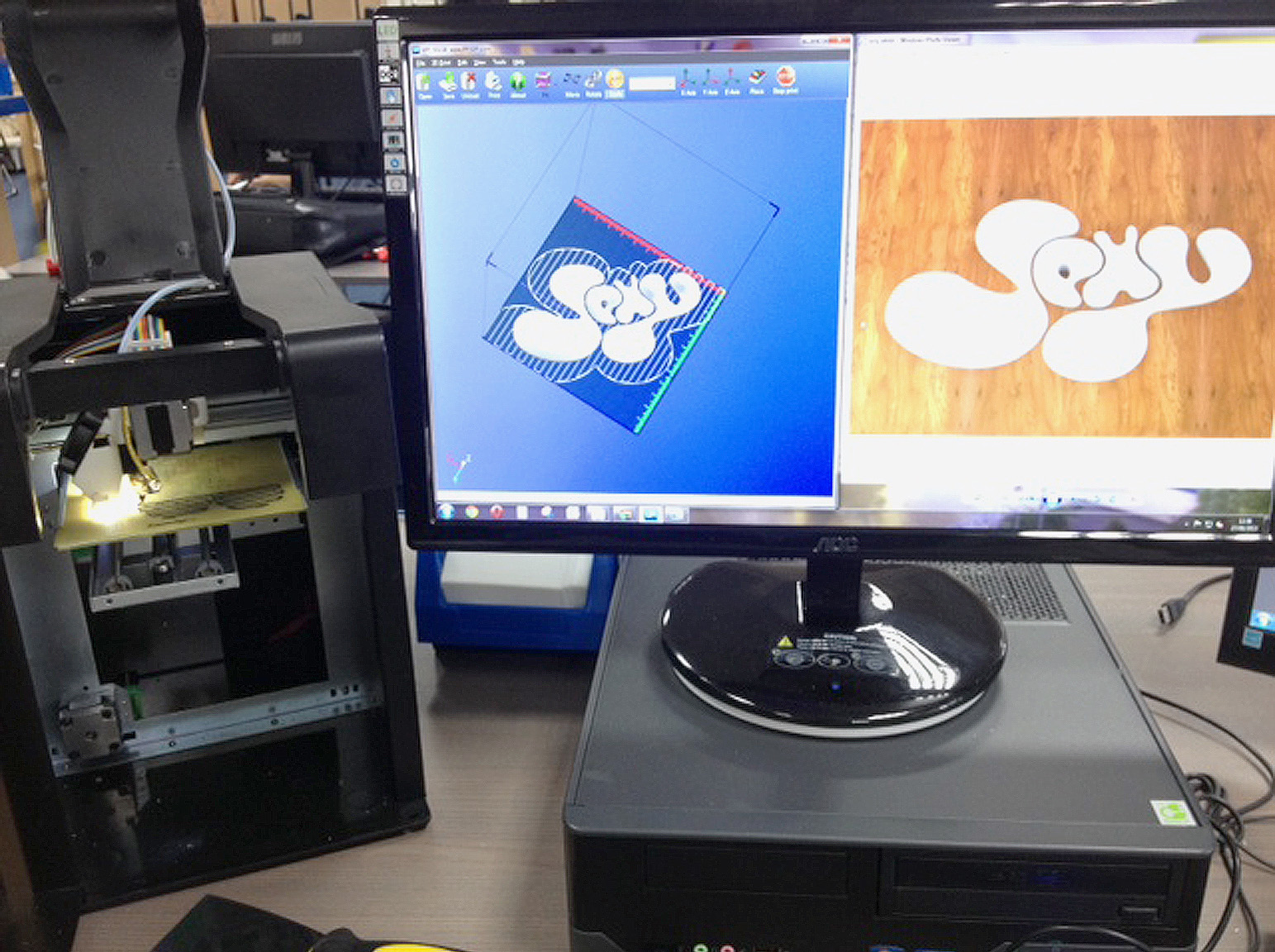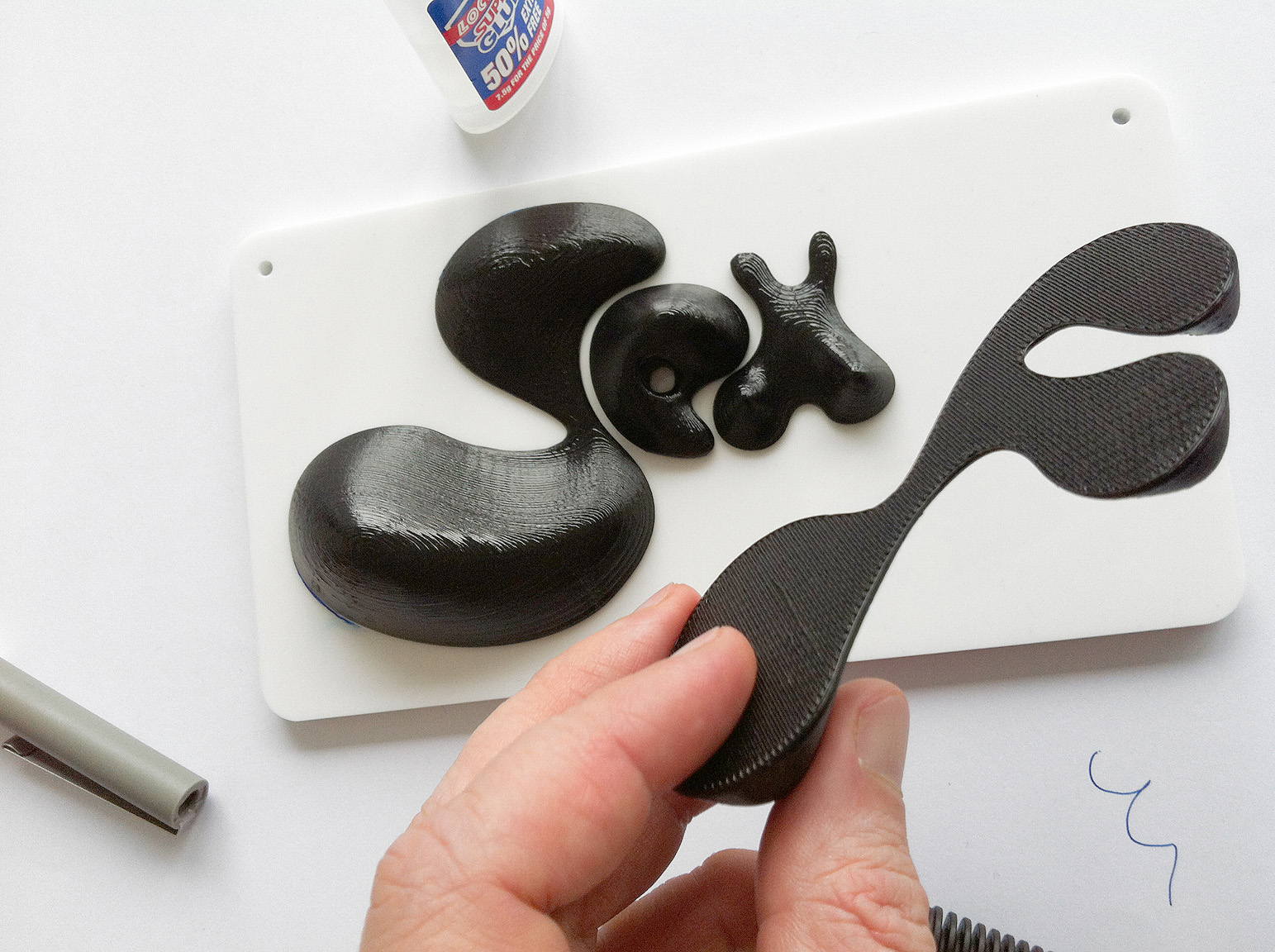
‘Sexy’ by Mind Design
Holger Jacobs runs Mind Design with Stewart Walker. Jacobs explains that “We Londoners are usually considered a bit stiff and there is a famous saying: ‘No sex please – we are British’.
“However, we were interested in the swinging 60s when London became sexy. Our typographic treatment of the word is inspired by the soft, psychedelic, lava lamp-like lettering seen during the hippie era. Like a big hugging blow up cushion.”
“Originally I made a quick sketch which we turned into a more defined computer drawing. That could have been the final outcome but we were interested to see how the word might look three dimensionally. At the same time we were really curious to work with one of those new 3d printers that become quite affordable now. I recently noticed a shop in Clerkenwell near our regular printer which offers this service (iMakr).”
It took a few days and we got our letters back nicely finished with a glossy black surface. If you look closely you can still see how the 3d printer builds them up layer by layer. We then ordered a piece of white acrylic and stuck the letters on with super glue. This was a bit tricky as they had to be spaced correctly and the glue dries very quickly. The final word looks very sexy (Holger’s fat belly doesn’t).”
‘Sexy’ by Mind Design is one of the words that will be displayed at Type Tasting with the London Design Festival 2013 at the V&A.